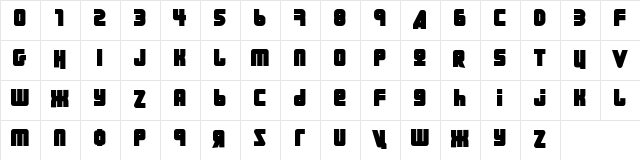
URAL Regular
Design Context for URAL Typeface
URAL offers clean, dependable letterforms without strong stylistic allegiance, making it a practical choice for designers who need flexibility.
Pro Tip: Use URAL in both headline and body roles to test its range before committing to a single application.